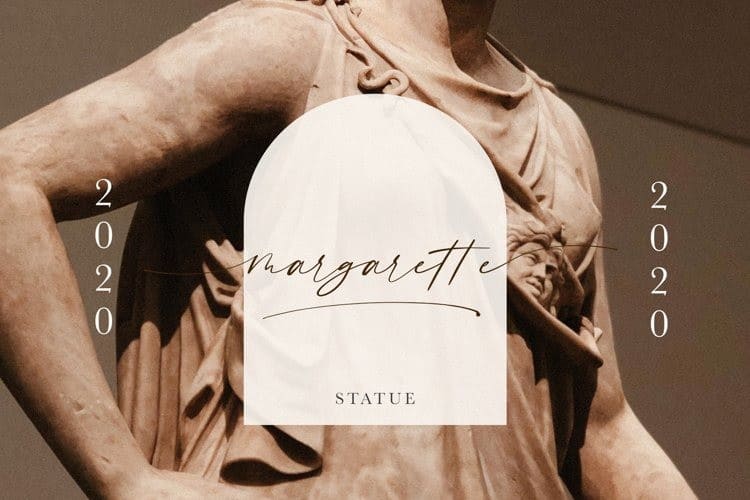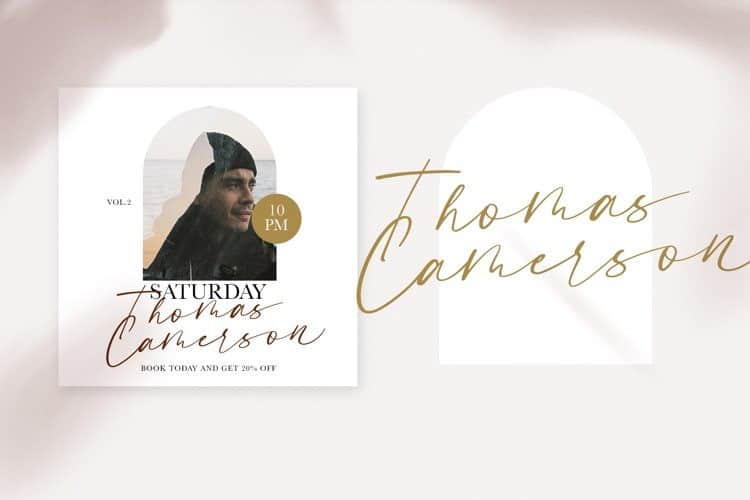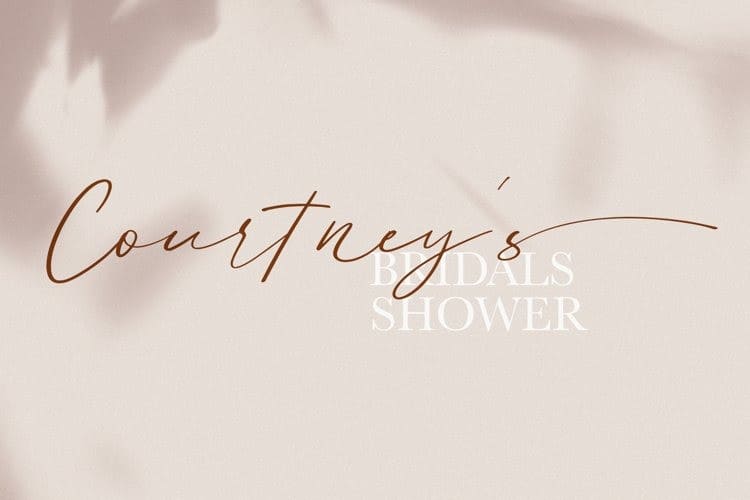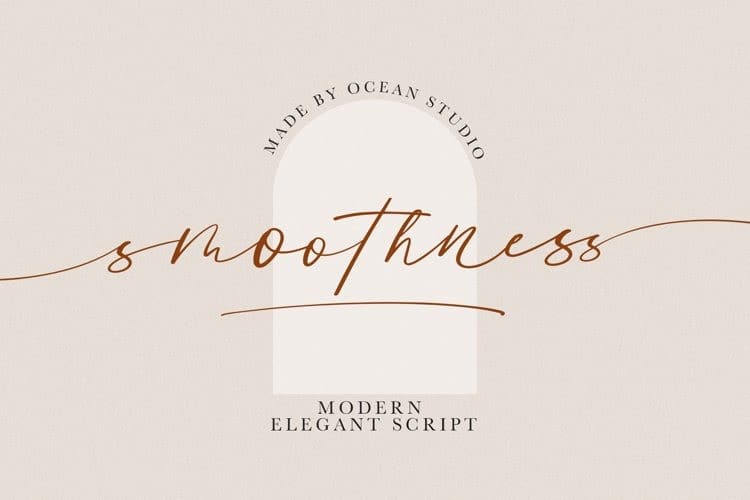
Smoothness Script Font is an elegant and luxurious script typeface. This font is designed and shared by Ocean Studio. It’s a gorgeous organic handwritten and that looks stunning in just about every works. With Full Multilingual support. well-suited for advertising, branding, logotypes, packaging, titles, headlines and editorial design.